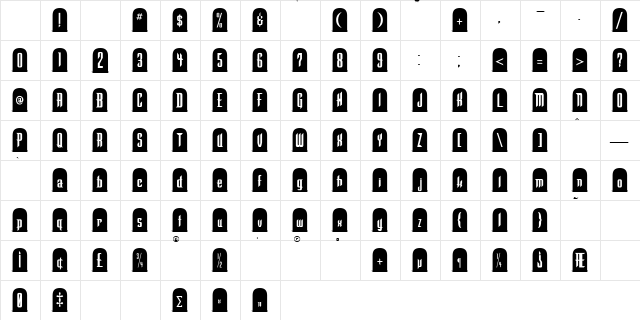
Tombstone Regular Free Font
Tombstone Regular
Design Context for Tombstone
Tombstone is a composed and adaptable typeface that performs quietly and consistently across a wide range of design contexts.